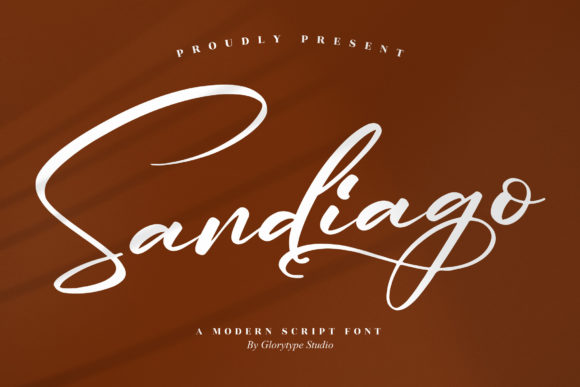
Unleash the Enchanting Sandiago Font: A Calligraphic Symphony for Your Creative Endeavors
Experience the allure of Sandiago, a captivating script font that dances across your designs with grace and elegance. Inspired by the fluidity of handwritten strokes, this font exudes a touch of sophistication and charm that will leave your audience spellbound.
Immerse yourself in the world of Sandiago, where every letter is a work of art. Its swirling curves and delicate serifs create a visual tapestry that dances before the eyes. Each glyph is carefully crafted to evoke a sense of harmony and balance, ensuring that your designs radiate an aura of timeless beauty.
With Sandiago by your side, you'll unlock a universe of creative possibilities. Whether you're crafting logos, branding projects, homeware designs, or product packaging, this font will add an instant touch of elegance and refinement. Its versatility knows no bounds, making it the perfect choice for a wide range of projects.
Envision your designs adorned with Sandiago's enchanting characters. Picture your logos radiating with an air of authority and sophistication, your branding materials exuding a sense of timeless charm, and your homeware designs imbued with a touch of whimsy and grace.
Let Sandiago transport you to a realm of creativity where imagination reigns supreme. Its meticulously crafted ligatures and alternate characters allow you to explore endless design possibilities, creating compositions that captivate and inspire.